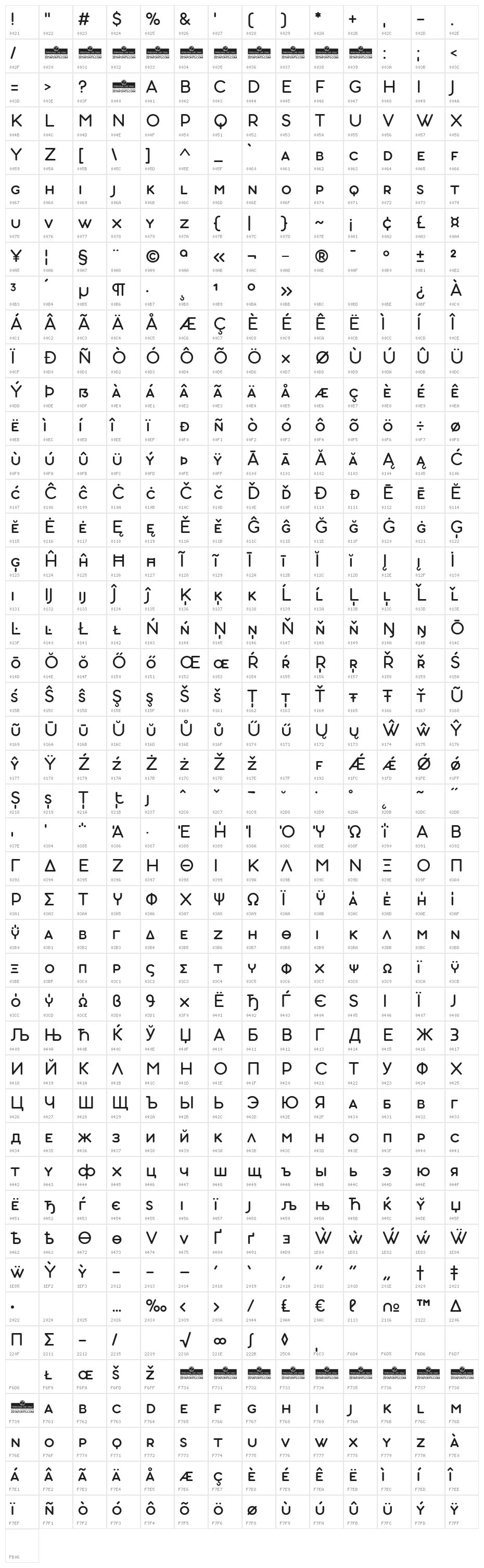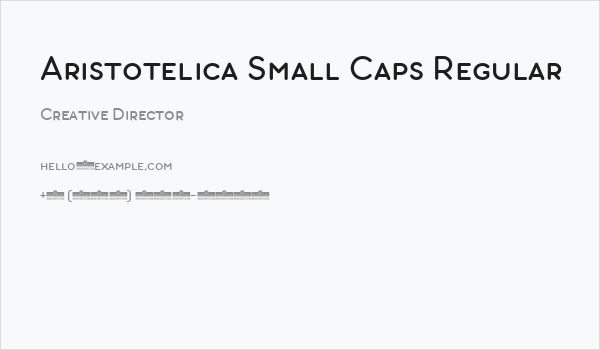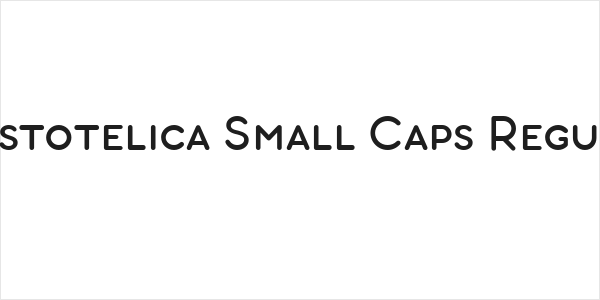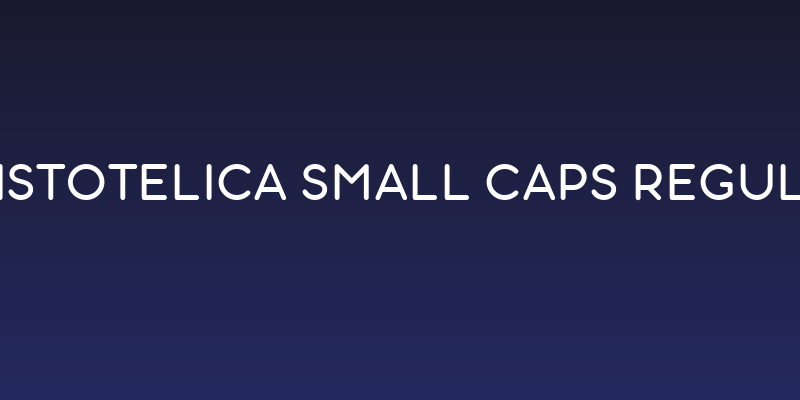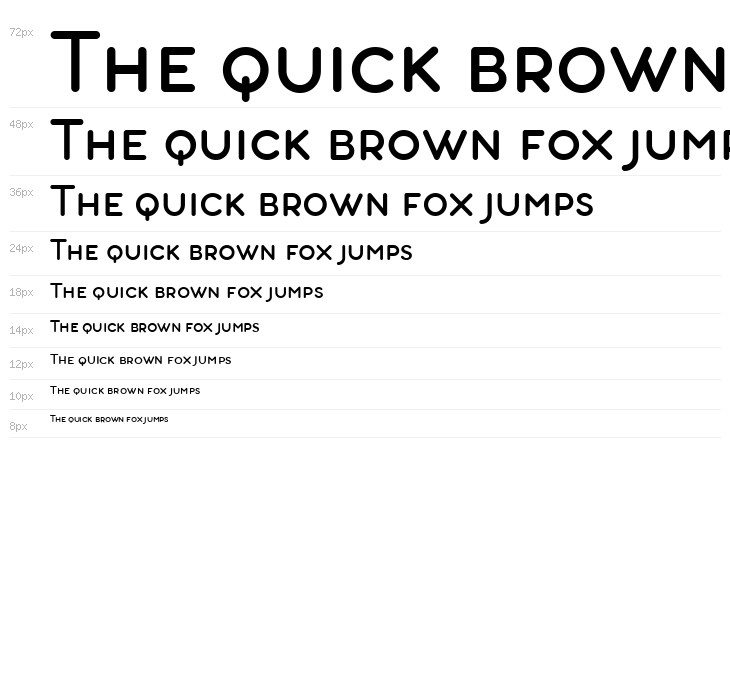
Aristotelica Small Caps Regular Font
Aristotelica Small Caps Regular Description
This font features a clean and modern design with rounded edges, giving it a friendly and approachable appearance. The uniform stroke width and geometric shapes create a harmonious and balanced look, making it highly legible. The uppercase letters are consistent in height and width, while the lowercase letters maintain a similar structure, enhancing readability. The numerals and special characters are designed to match the overall aesthetic, ensuring a cohesive appearance across all text elements.
| Proposed Projects | Ideal for branding, advertising, and digital interfaces where a modern and approachable look is desired. |